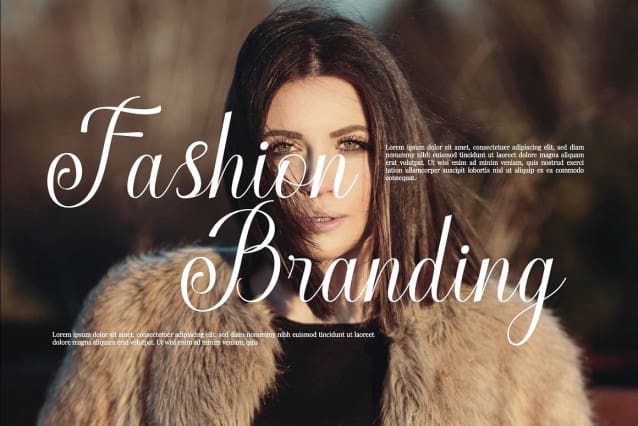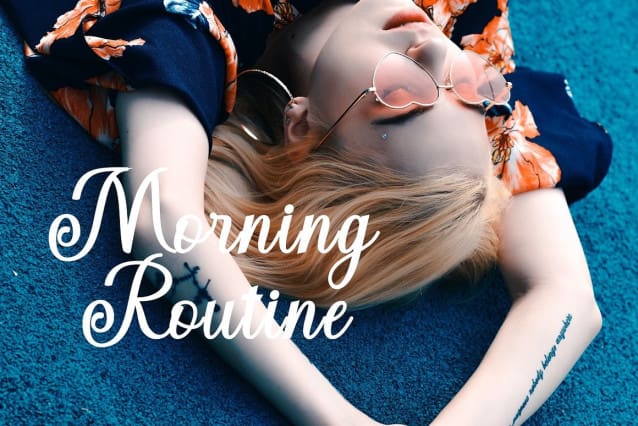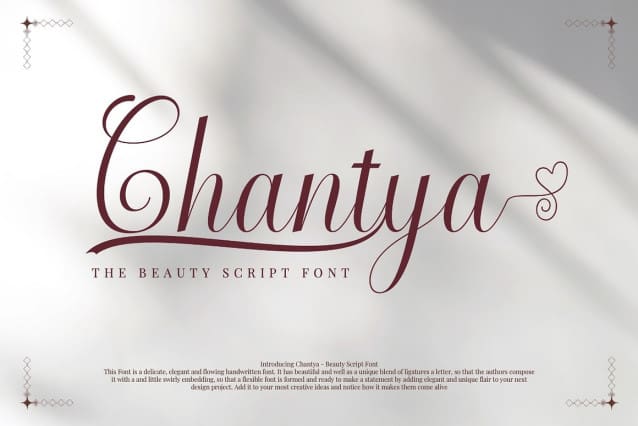
Chantya Font
Chantya Font is a delicate, elegant and flowing calligraphy font. It has beautiful and well as a unique blend of ligatures a letter, so that the authors compose it with a and little swirly embedding, so that a modern font is formed and ready to make a statement by adding elegant and unique flair to your next design project. Add it to your most creative ideas and notice how it makes them come alive!